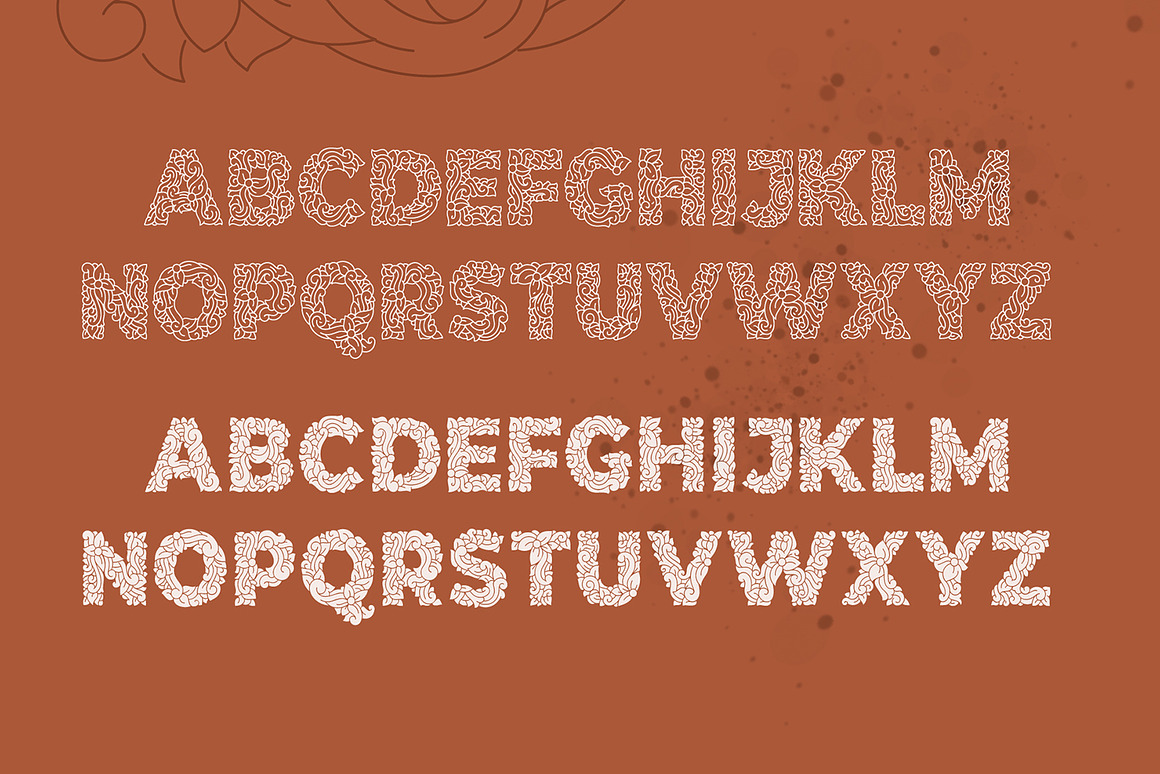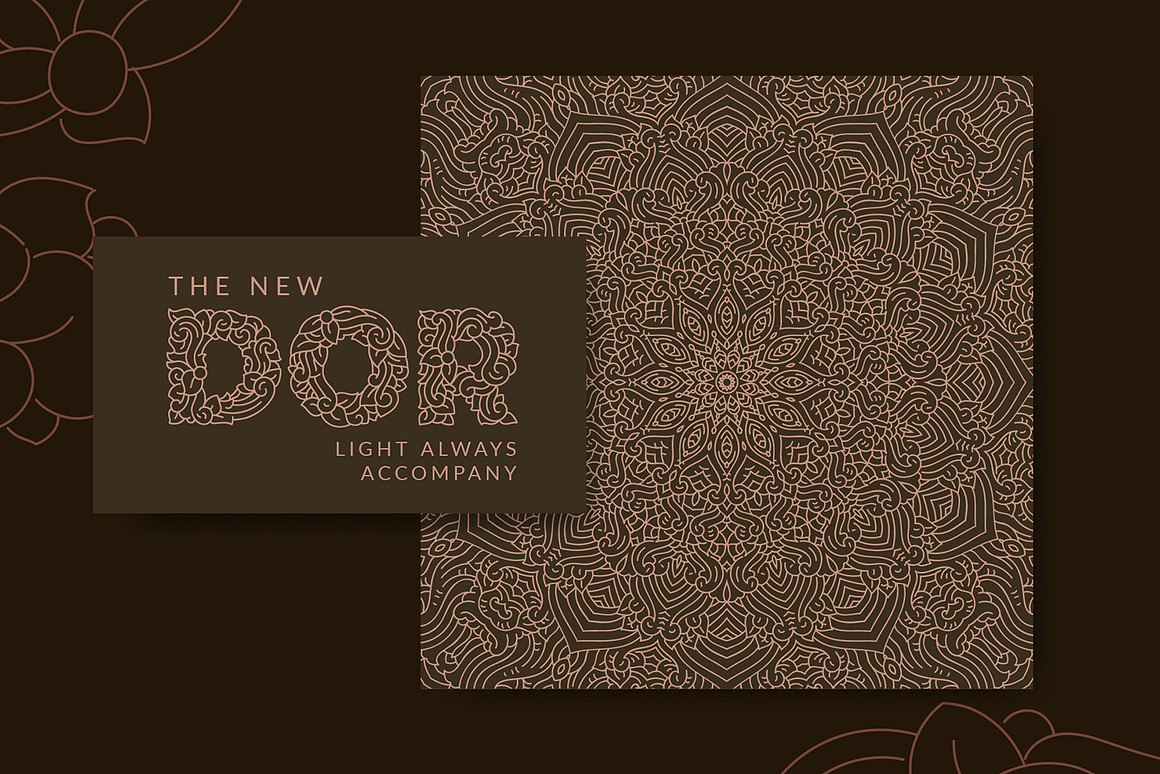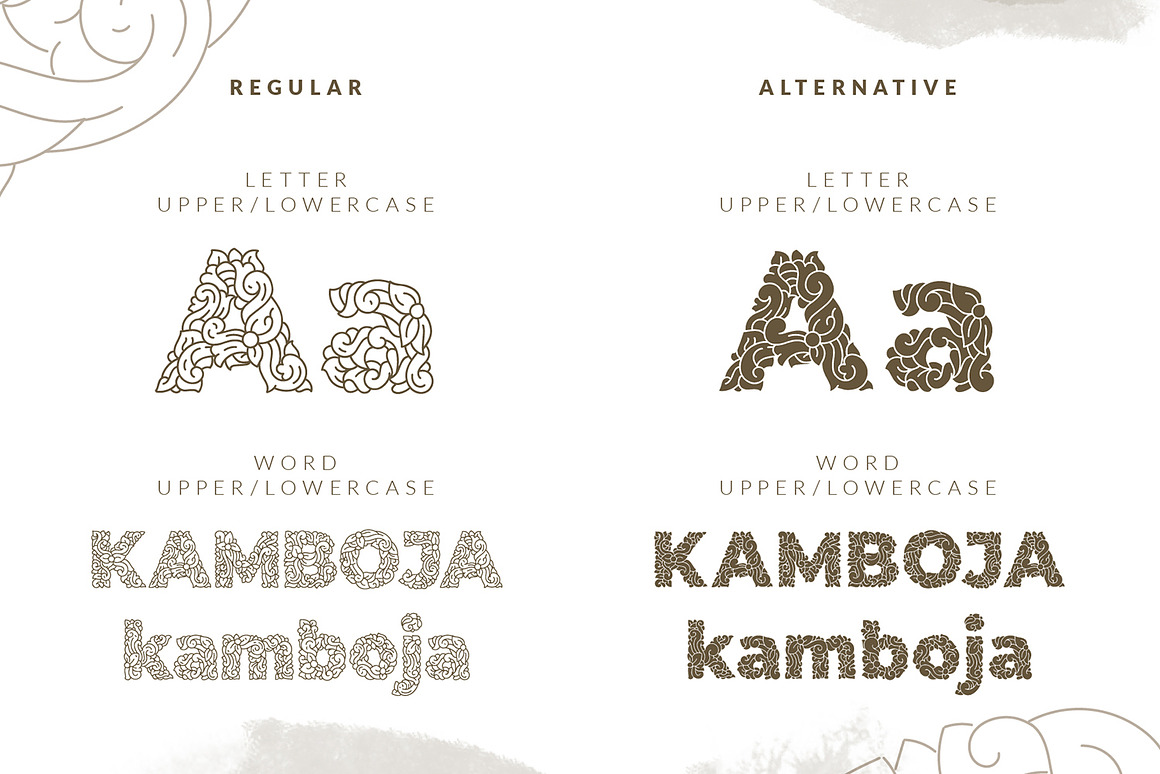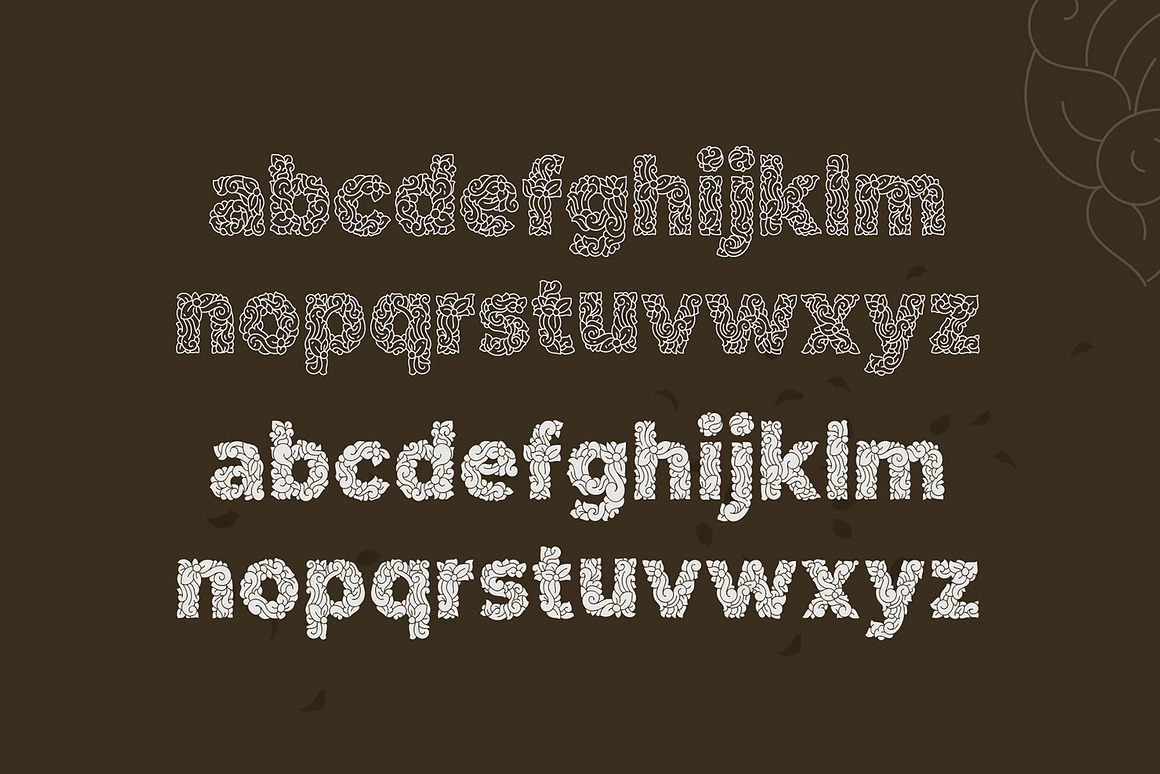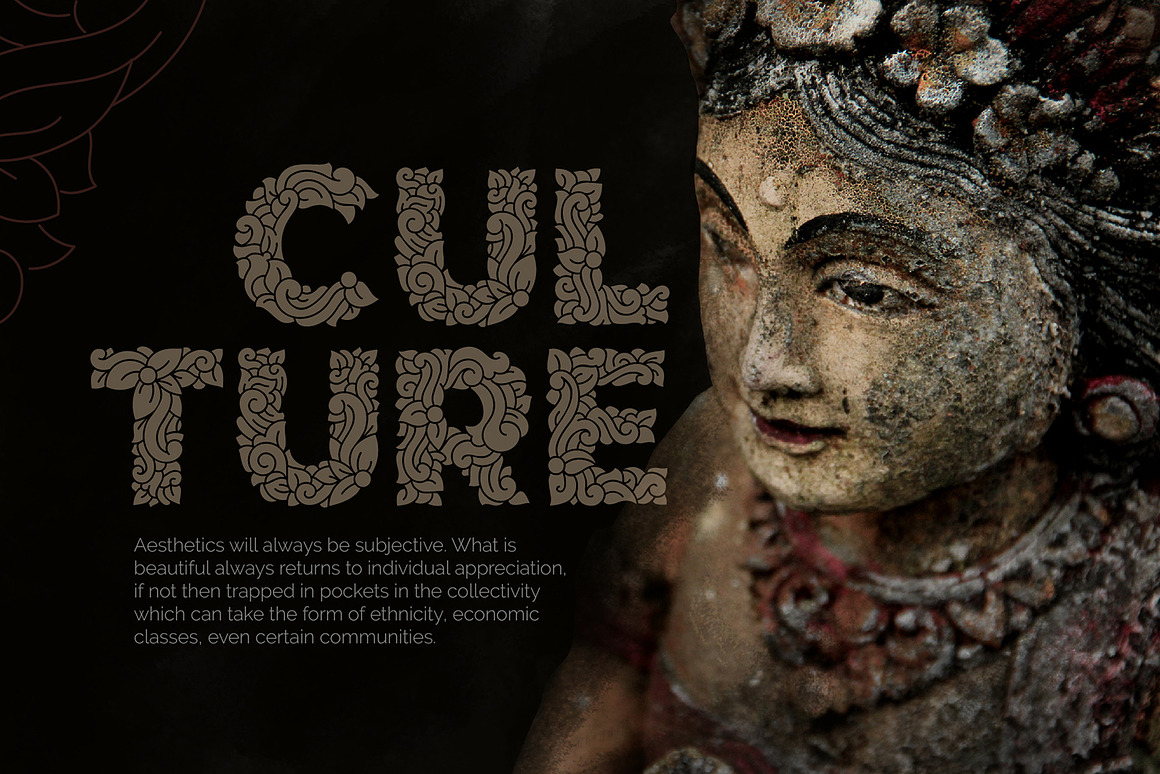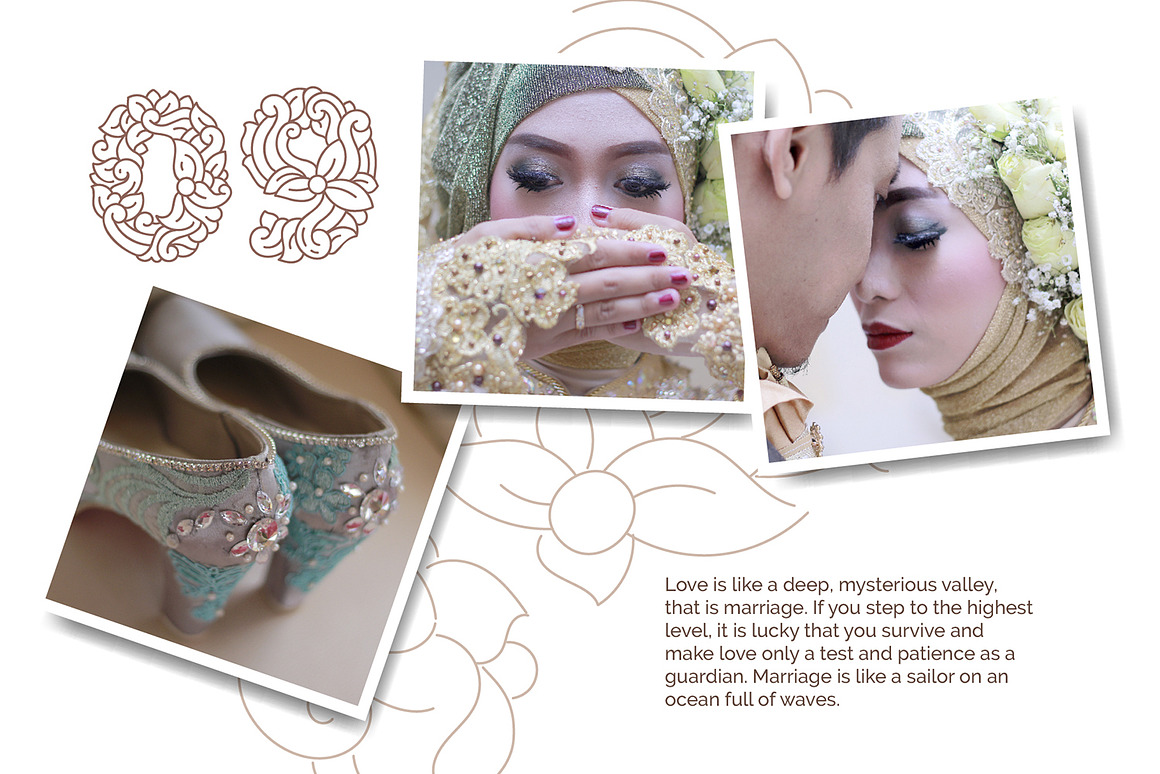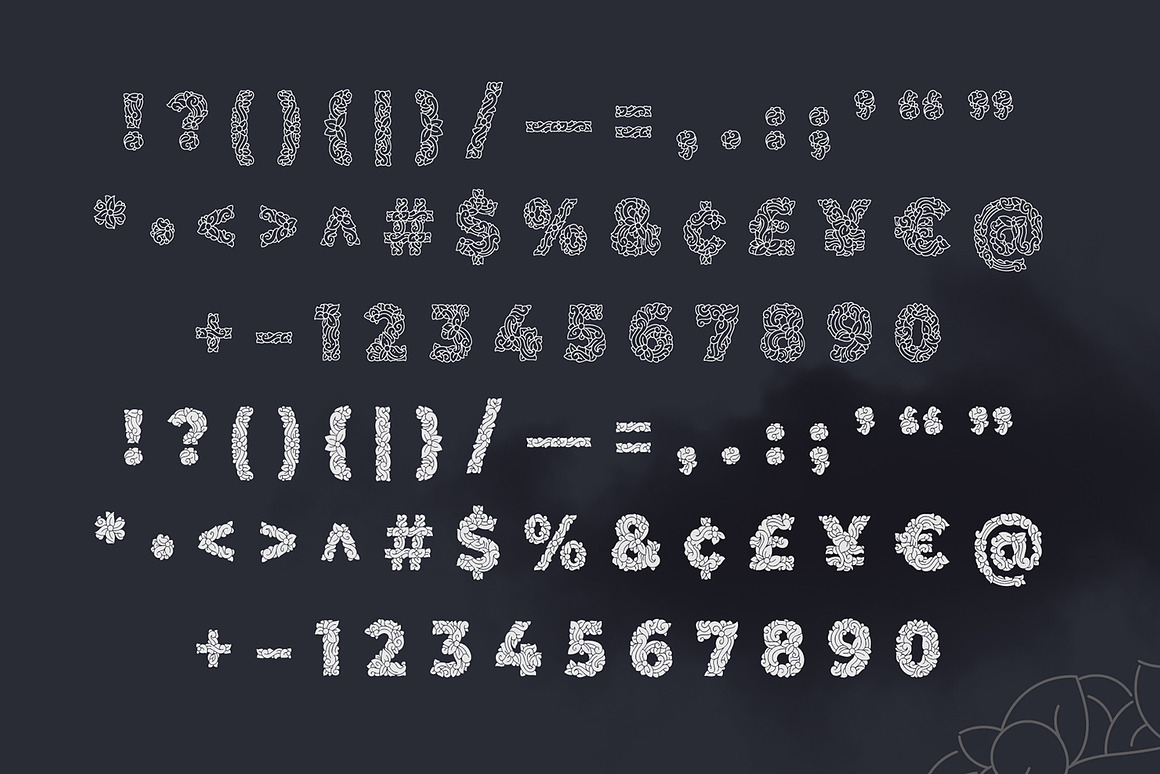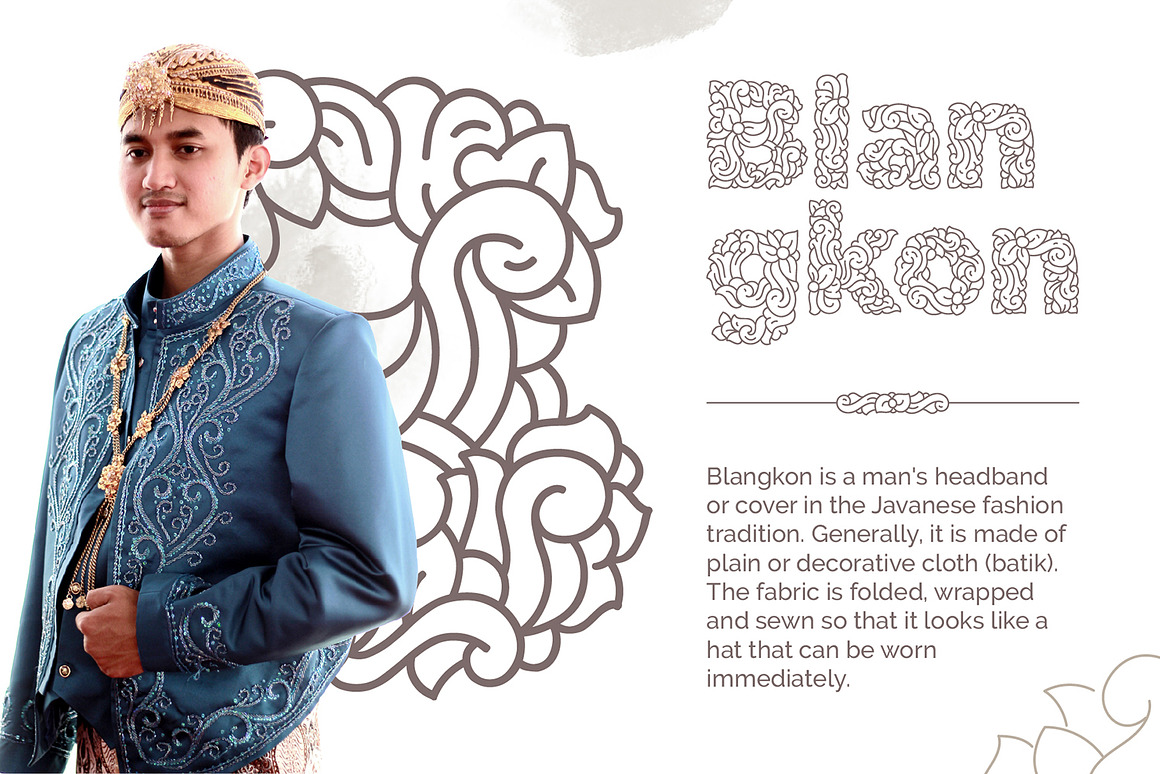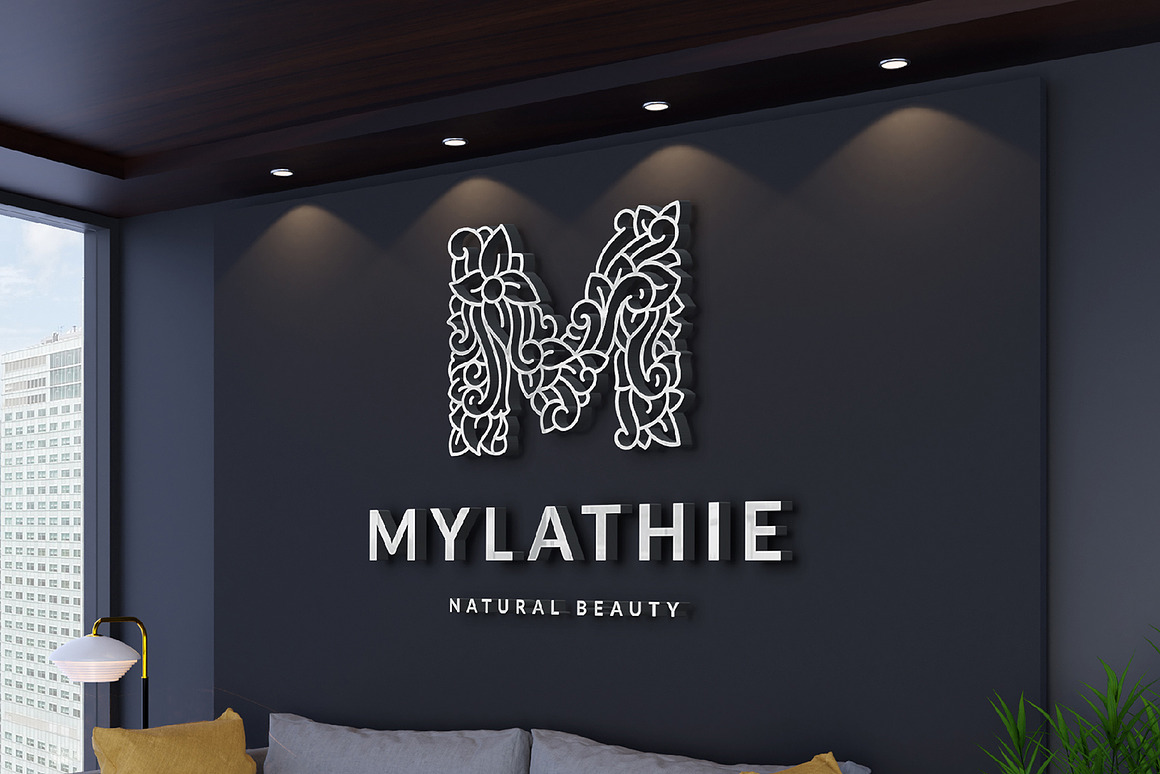
2 Batik Jawa And Flourishes Font
Add a touch of elegance and natural beauty to your projects with this pair of decorative English fonts featuring integrated floral designs. Each font combines graceful letterforms with delicate floral motifs, vines, or botanical swirls, creating a harmonious blend of typography and illustration. Available in both TTF and OTF formats for broad compatibility across design software like Adobe Photoshop, Illustrator, InDesign, Canva, and word processors, these fonts are ideal for crafting stunning invitations, romantic logos, boutique branding, product packaging, wedding materials, and any design that calls for a feminine, artistic, or vintage-inspired aesthetic.
Key Features of These Floral Fonts:
- 2 Unique Decorative Fonts: Each includes uppercase, lowercase, numerals, and basic punctuation.
- Floral Design Integration: Letters feature embedded flowers, leaves, or botanical embellishments.
- Graphic designers creating wedding invitations, save-the-dates, and menus
- Brand designers developing logos for beauty, wellness, or lifestyle brands
- Crafters and small business owners making custom packaging and labels
- Digital content creators designing Pinterest graphics, Instagram quotes, or blog headers
- Event planners producing decorative programs, place cards, and signage
Instantly access a charming set of floral-designed fonts to infuse your projects with romance, nature, and handcrafted elegance. Download this essential typography pack to give your designs a unique, artistic signature.
Batik Jawa is a decorative typeface/font (victorian style mixed with indonesian batik culture) designed with carefully handcrafted. This perfectly made to be applied in logo or branding, stationery, books, packaging, fashion, magazines, t-shirt, greeting or wedding cards, vintage design, novels, labels and many advertising purposes.
- Uppercase
- Lowercase
- Number
- Punctuation
- Symbol